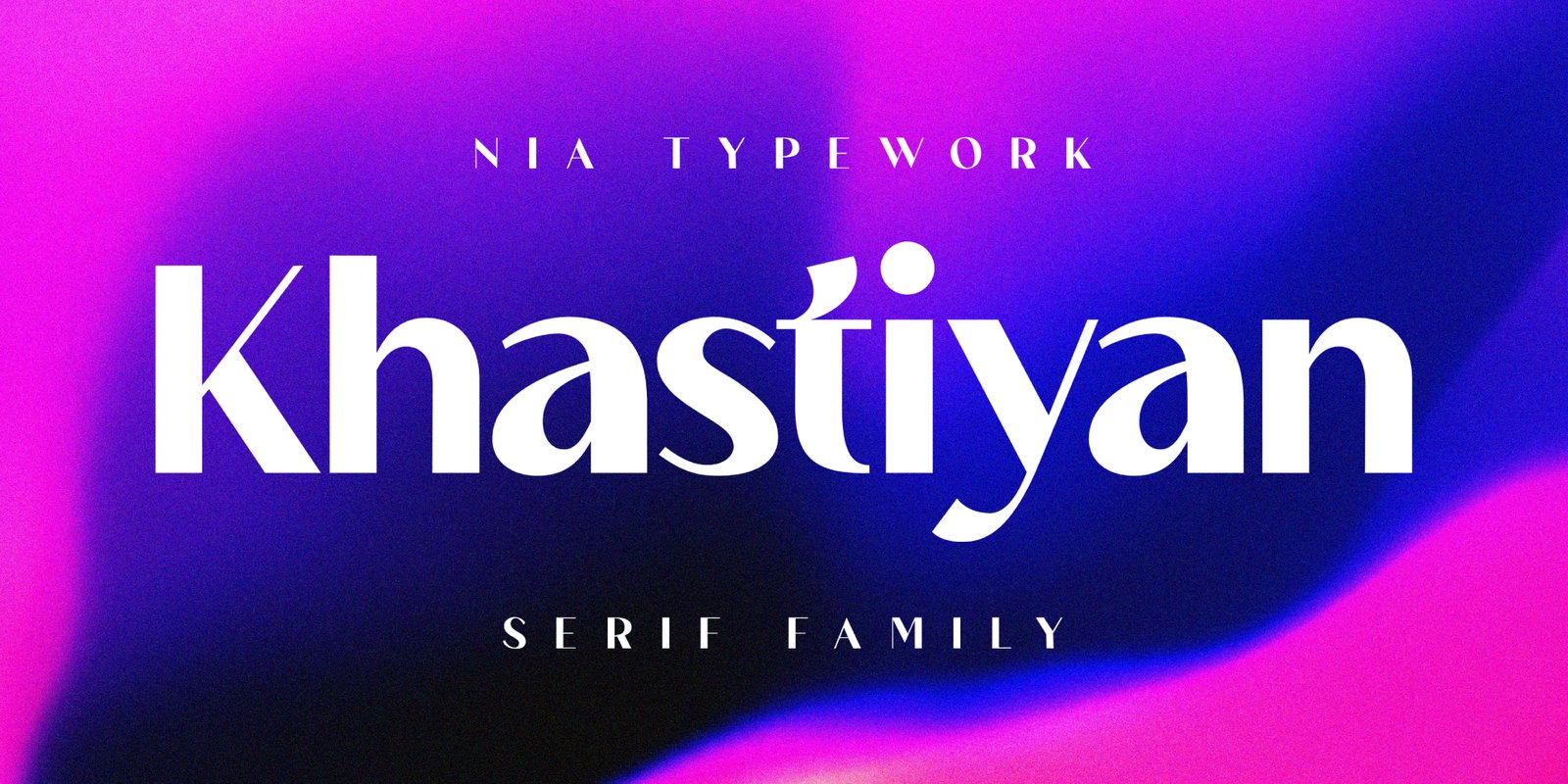
Khastiyan Font Family
Khastiyan Font Family is a premium-quality font developed to enhance your work with a polished, modern, and visually elevated look. Khastiyan is a modern sans display typeface crafted to make a bold and memorable statement. Combining clean geometric construction with elegant curves and distinctive letterforms, it delivers a sophisticated balance between contemporary minimalism and expressive personality. Designed for impactful visual communication, Khastiyan excels in branding, headlines, advertising, packaging, and editorial design. Its strong presence and refined details create a striking aesthetic that remains highly readable across a variety of creative applications.